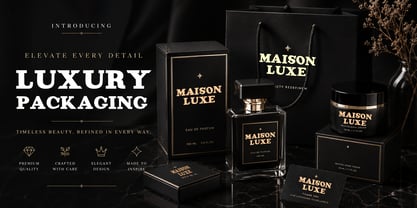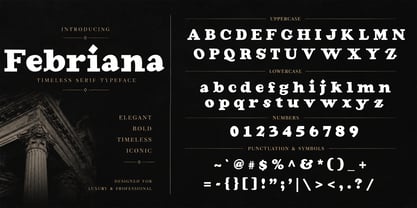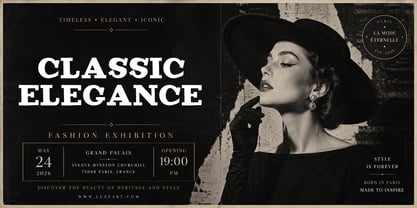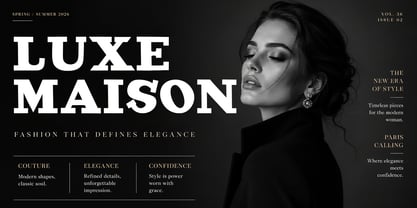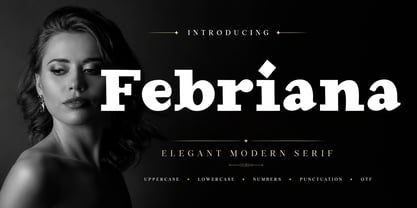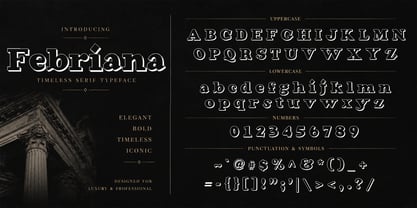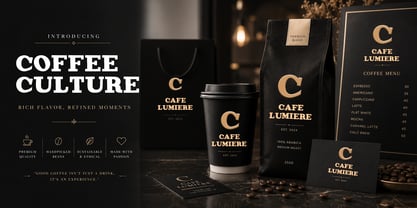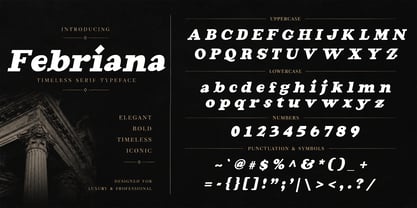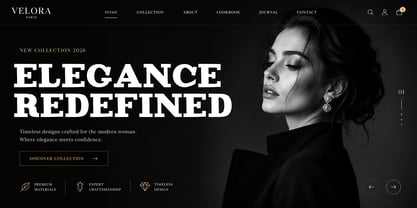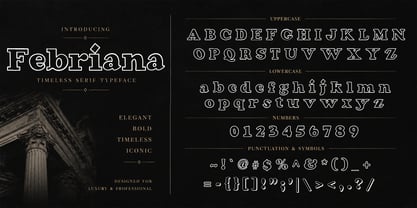
Febriana
The Febriana Font Family was designed by Teuku Saifullah and published by Shape Studio. Febriana contains 7 styles and family package options. More about this family
Febriana is a bold retro serif font with a warm vintage personality and timeless elegance. Designed with soft curves, chunky letterforms, and confident proportions, this typeface is perfect for branding, logos, packaging, editorial layouts, posters, signage, café identities, apparel, social media graphics, and premium merchandise.
Its distinctive vintage charm blends beautifully with modern design trends, making it ideal for projects that need a bold yet sophisticated look. Whether you're creating nostalgic branding or eye-catching headlines, Febriana delivers excellent readability and a memorable visual impact.
Perfect for:
• Logo Design
• Vintage Branding
• Coffee Shop & Café
• Packaging Design
• Fashion Editorial
• Restaurant Menu
• Business Cards
• Posters
• Social Media
• Website Headers
• Product Labels
• Merchandise